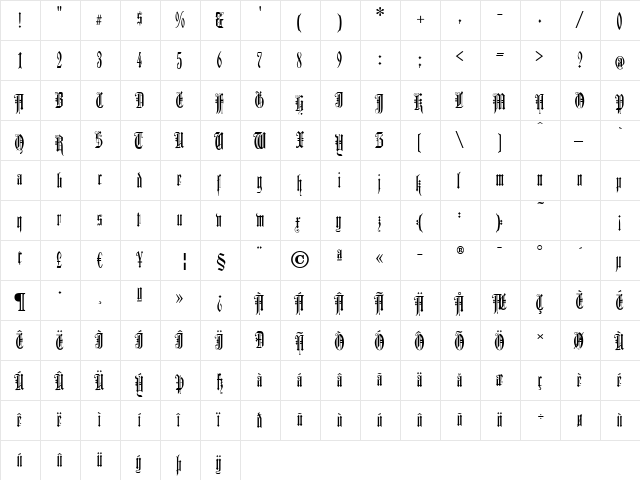
Duerer Gotisch UNZ Regular
| Foundry | Typographer Mediengestaltung, UNZ-Erweiterung CAT-Fonts |
Design Context for Duerer Gotisch UNZ Typeface
Duerer Gotisch UNZ is a composed and adaptable typeface that performs quietly and consistently across a wide range of design contexts.